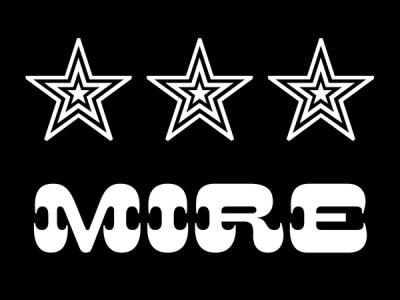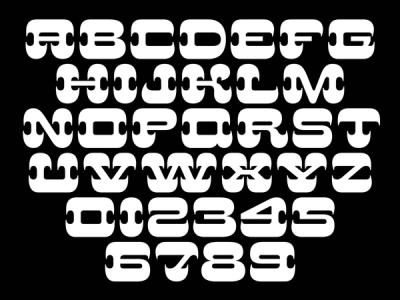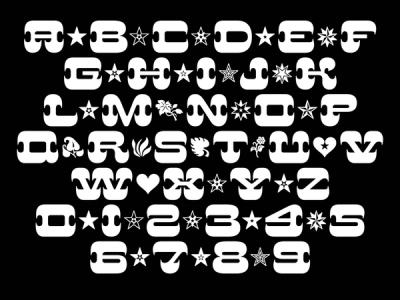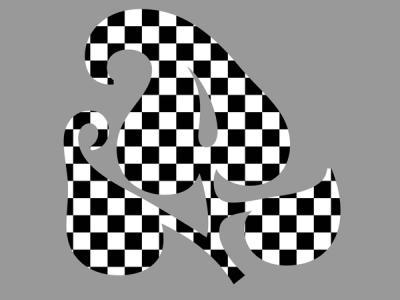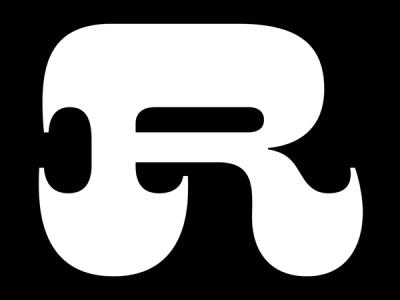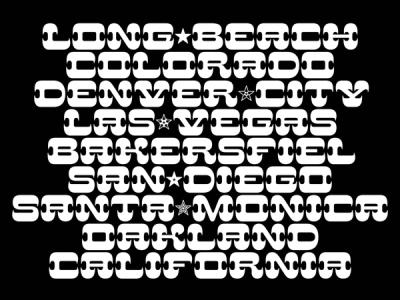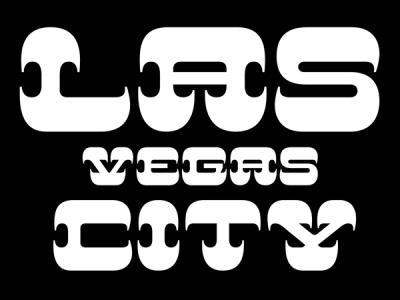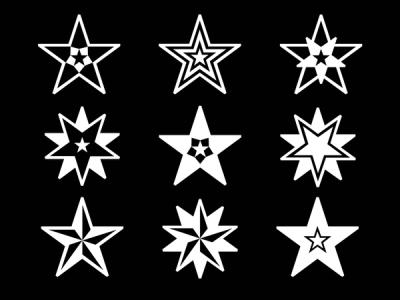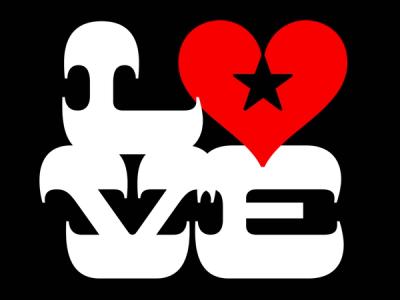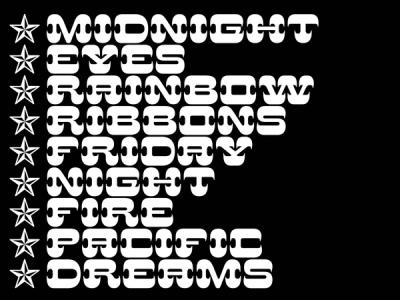
MIRE TYPEFACE
Mire is a display typeface developed from the letters M.I.R.E discovered in Michael Twyman’s book Printing: 1770-1970 (London, British Library, 1970). This extra bold typeface speaks by its roundness and its ornament glyphset of its time; wood-type printing at the end of the 19th century. This rich period in fancy typefaces flourishes at the birth of advertising, during an improvement in the quality of printing equipment. With Mire, the stake of the interpretation of these four letters was above all around its imposing serifs, between which the letter is drawn. Its title comes obviously from the four original letters, which evoke a shooting target, —from where the french expression “to have in line of sight” comes from— and then celebrates the disposition that have the display typefaces to be pointed out. We took care to develop also a large set of contemporary ornament glyphs to play with and transform it into frames.
Design
Marie-Mam Sai Bellier (Diorama Type Partners), 2019-2022
Font Development
Marine Stephan
Publishing Year
2023
First Apparition
Revue Diorama No.1, Legibility